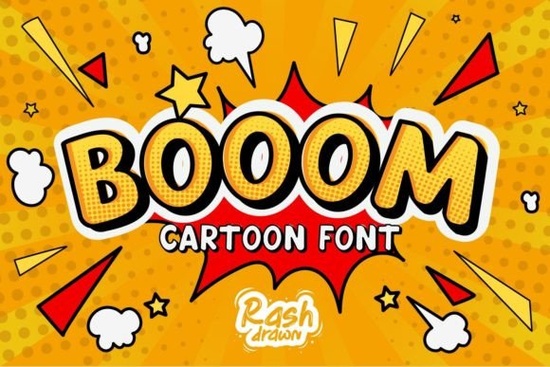
If you're looking for a bold, expressive font that grabs attention without feeling forced or overly cartoonish, Booom Font is worth your time. It’s not just another comic-style typeface it balances energy and legibility in a way that works across real projects: kids’ activity books, playful shop signage, sticker packs, birthday invitations, and even merch like tote bags or enamel pins. Designed with intention, not just flair, it delivers impact while staying readable at small sizes and scalable for large-format prints.
What makes Booom Font different from other cartoon fonts?
Many “fun” fonts sacrifice clarity for quirkiness letters get too tight, strokes become uneven, or spacing feels unpredictable. Booom Font avoids those pitfalls. Its uppercase and lowercase characters are carefully balanced, with generous x-height and open counters (the enclosed spaces inside letters like ‘a’, ‘e’, or ‘o’). That means it stays crisp whether you’re printing on fabric, cutting vinyl, or exporting for web use. It also includes full punctuation and numerals no scrambling for missing symbols mid-design.
You’ll notice the weight is consistent but not rigid: there’s subtle variation in stroke thickness that adds warmth, like hand-drawn lettering, but with the reliability of a well-engineered digital font. That’s why it fits so naturally on children’s products and still feels fresh on branding for indie toy shops or retro-themed apparel lines.
Where does Booom Font work best?
Think beyond “comic book covers.” This font shines where personality matters more than formality:
- Kids’ learning materials flashcards, classroom posters, alphabet charts
- Print-on-demand items mugs, t-shirts, wall art, and greeting cards aimed at families or educators
- Digital stickers and social graphics especially for Instagram Stories or Canva templates targeting parents or teachers
- Small business signage café chalkboard menus, boutique window decals, or craft fair banners
It’s not meant for body text or long paragraphs and that’s intentional. Use it where you want a visual pause, a smile, or a moment of recognition. Pair it with a clean sans-serif (like Montserrat or Open Sans) for contrast, or layer it over textured backgrounds for extra depth.
How does it compare to similar fonts on Creative Fabrica?
If you’ve already explored other display fonts on the platform, you might wonder how Booom Font stacks up. It shares playful energy with Super Flower Font, but leans less floral and more grounded in comic-book rhythm. Compared to Rushk Font, it’s less condensed and easier to read at smaller sizes great if you’re designing for younger audiences or low-resolution print. Preppy Hunky Font has a bolder, almost vintage poster feel, while Booom Font keeps things lighter and more approachable.
Technical notes for crafters and designers
It’s not a variable font, so you won’t find built-in weight or width sliders but the single bold weight is thoughtfully tuned. If you need lighter versions, pair it with a thin companion font rather than trying to fake it with transparency or stroke reduction.
One thing to keep in mind: because of its strong personality, it’s best used sparingly. A headline, logo lockup, or single-word emphasis works better than full sentences. Test it at actual print size what looks fun on screen can sometimes feel overwhelming on physical products.
For reference, you can see how Booom Font is used by others on Creative Fabrica especially in SVG bundles and printable collections. You’ll also find it bundled with coordinating graphics like speech bubbles, stars, and lightning bolts in some kits.
Before you download: a quick checklist
- ✅ You need a high-impact, kid-friendly display font not a script or serif
- ✅ Your project uses short phrases, headlines, or logos (not long blocks of text)
- ✅ You want full character support including lowercase, numbers, and common punctuation
- ✅ You’re comfortable pairing it with simpler fonts for balance
- ❌ You don’t need multiple weights, alternates, or language extensions beyond basic Latin
If those match your needs, Booom Font is a straightforward, reliable choice no overpromising, no hidden complexity. Try it in your next project, and pay attention to how people respond. Often, the best test isn’t how it looks it’s whether someone pauses, smiles, or says “Hey, this is fun.”